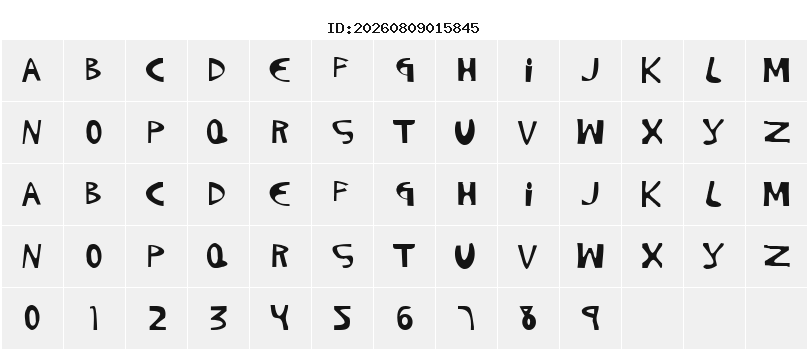
Pigment 08 Preview
• Font Name: Pigment 08
About Pigment 08.ttf
Pigment 08.ttf is a modern, elegant sans-serif font designed for ultimate readability and visual harmony. Perfect for branding, headlines, web design, and print materials.